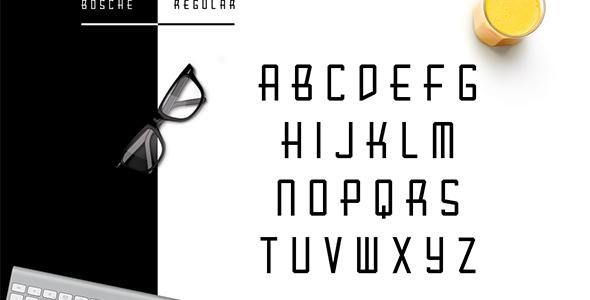
Bosche Typeface - 3 Weights
BOSCHE ALL CAPS TYPEFACE | WITH 3 WEIGHTS Solid, Precise, Modest. Bosche is a display font that gives you cool and modern touch typography with three different styles. Bosche is a utilitarian typeface inspired by Bauhaus Movement which combined with futuristic touch. It gives Bosche an authentic look but at the same time there is a modern approach to the character set. Files Included: - Bosche Regular (otf & ttf) - Bosche Sharp (otf & ttf) - Bosche Rounded (otf & ttf) Features: - Uppercase/Lowercase - Numerals & Punctuations - Accents (Multilingual characters) Hope you have fun with Bosche! Enjoy!